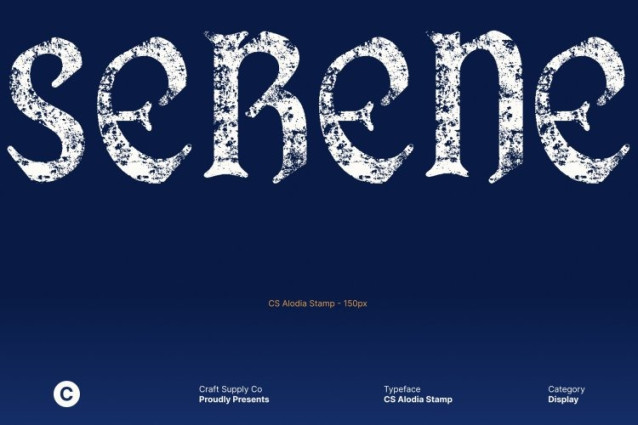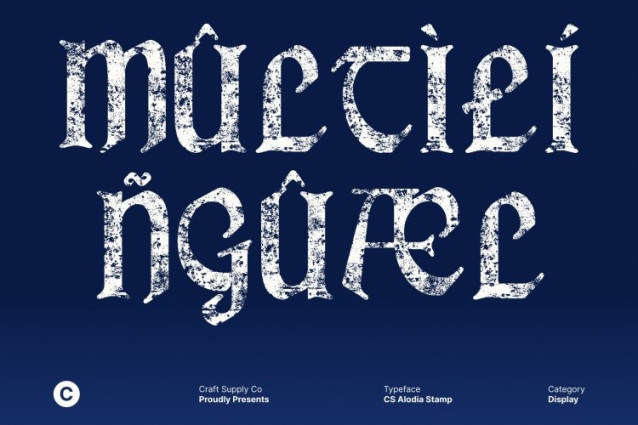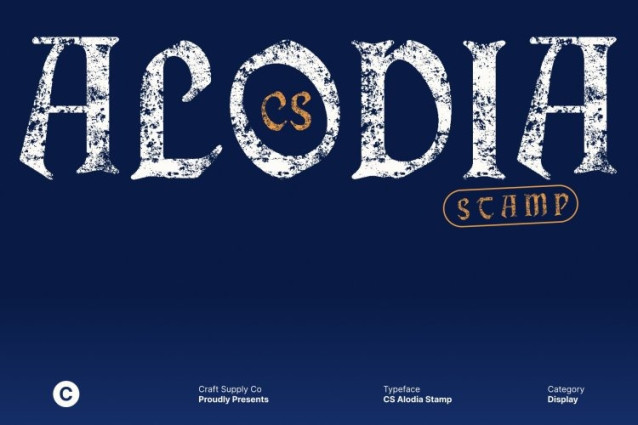
CS Alodia Stamp Font
CS Alodia Stamp Font This is a Gothic display serif font inspired by the grandeur of medieval typography. Its bold, angular letterforms and intricate serif details convey a sense of history, power, and timeless sophistication. Enhanced with a stamp effect, the font gains an aged, handcrafted texture that reinforces its classic and historical character.
Bold Angular Letterforms with Textured Drama
The strong, emphatic strokes and sharp serifs create a striking visual presence that feels commanding and majestic. The stamped texture introduces organic imperfections reminiscent of old printing and engraved lettering, adding depth and authenticity while enhancing the dramatic Gothic aesthetic.
Medieval Influence with Expressive Impact
This font is designed to stand out in high-impact display use. Its combination of ornate detailing, bold structure, and vintage texture delivers a powerful visual rhythm, making headlines, banners, and posters feel expressive, dramatic, and full of character.
Perfect for High-Impact and Heritage Designs
Ideal for posters, branding, album artwork, book covers, event graphics, and editorial layouts, this font brings medieval elegance into modern design. Its Gothic form, artistic stamp texture, and timeless presence make it a perfect choice for projects that demand heritage, intensity, and unforgettable visual impact.